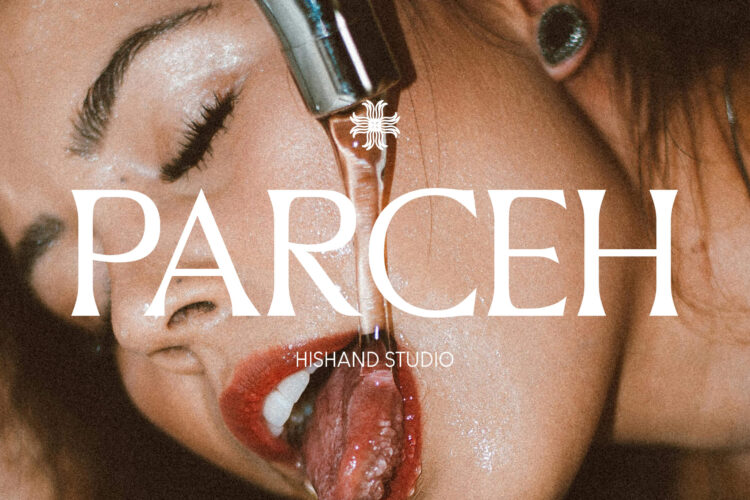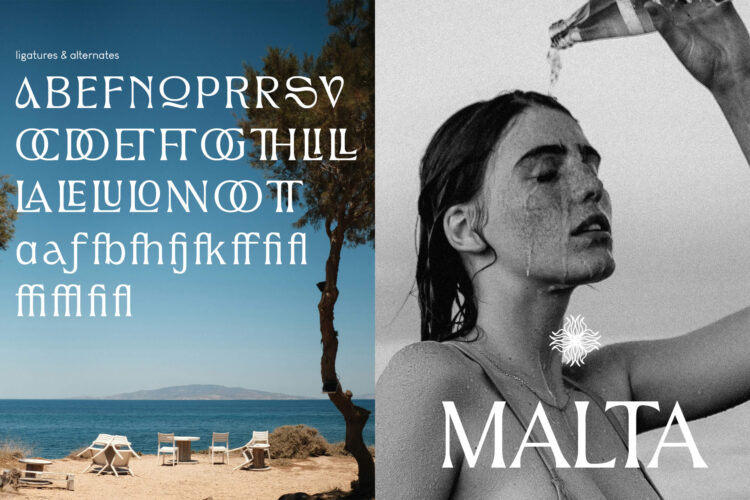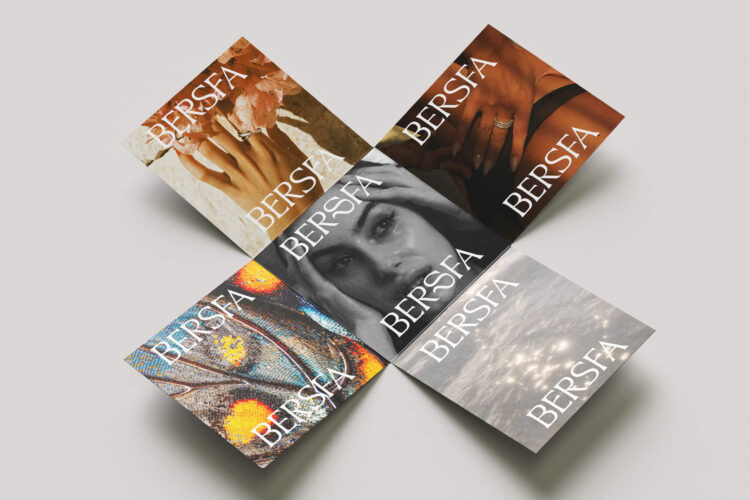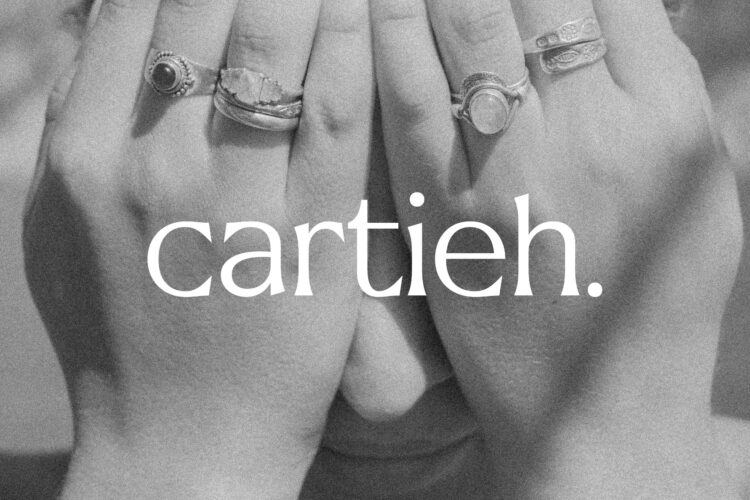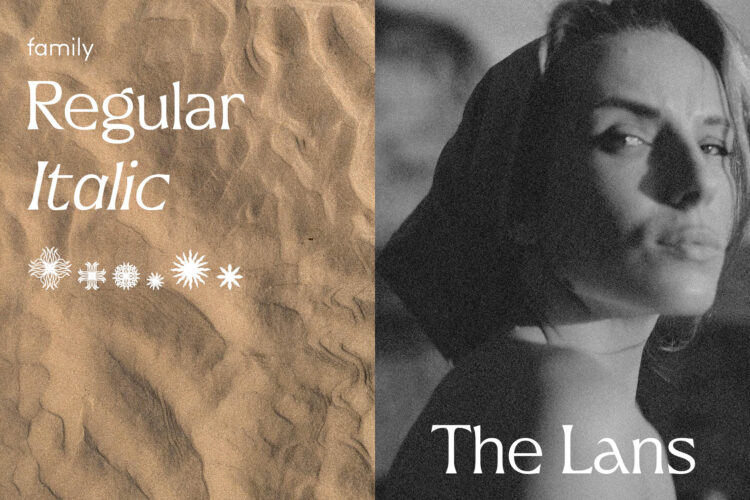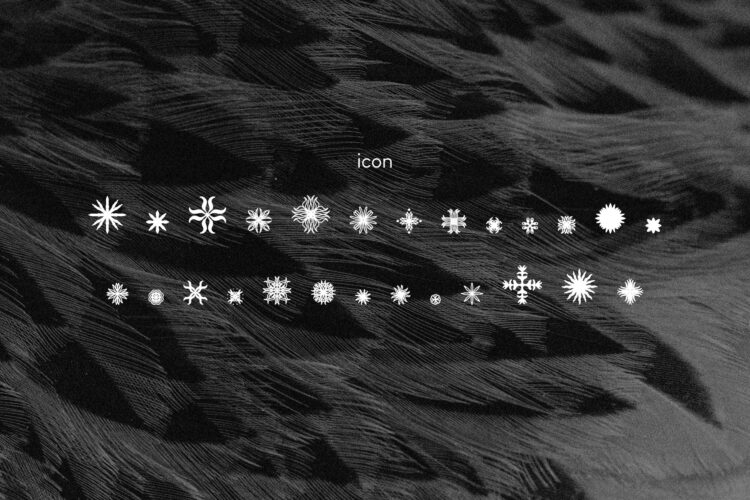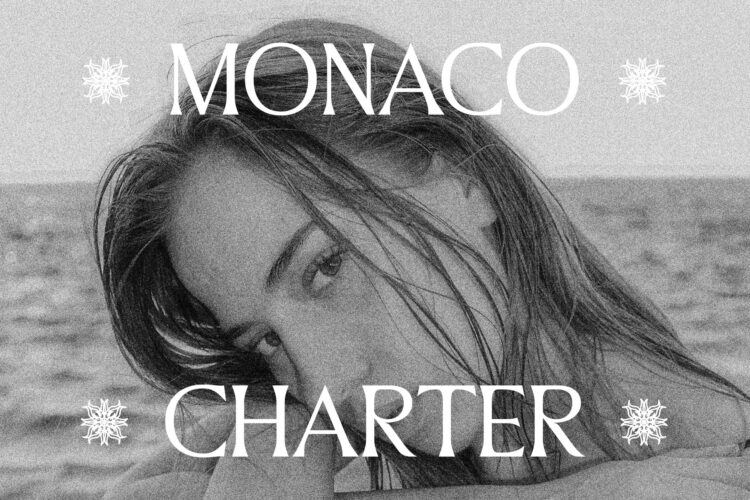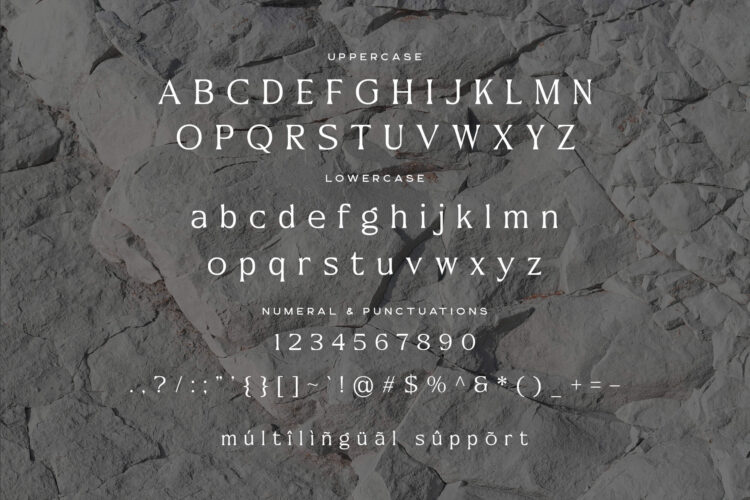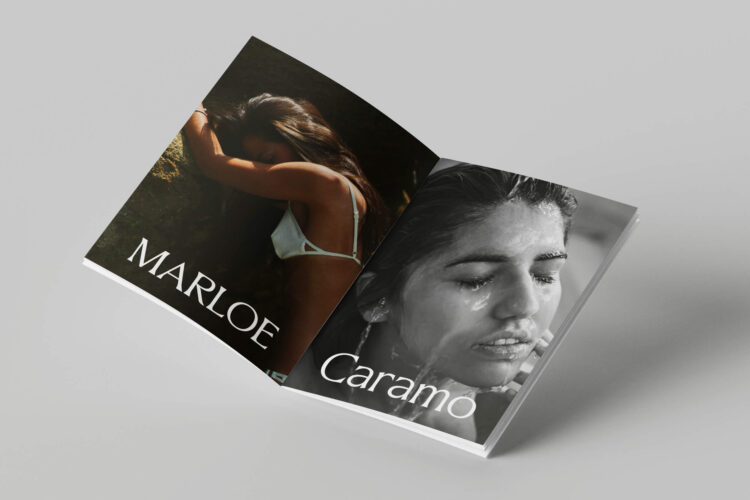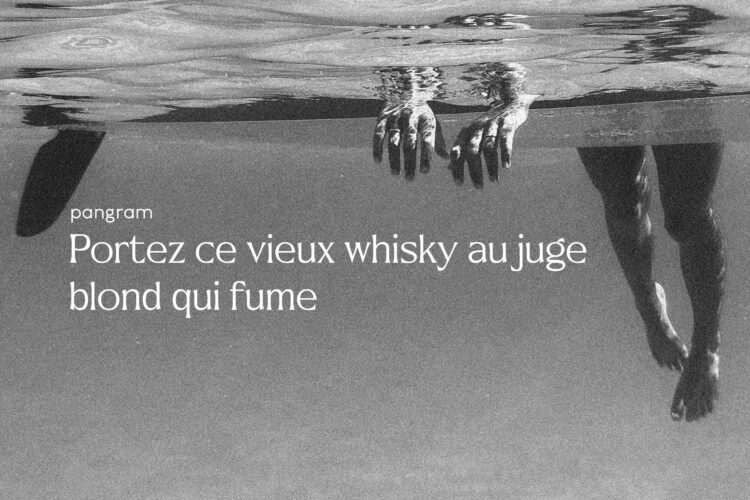
Parceh is an elegant serif display font designed to bring a refined yet striking aesthetic to any creative project. With its delicate high-contrast strokes, graceful serifs, and poised proportions, Parceh Serif Font delivers a luxurious, editorial feel that exudes sophistication and timeless beauty. It is crafted to work beautifully in headlines, fashion branding, posters, and premium packaging where elegance and style matter equally.
What makes Parceh unique is its fine, fashion-forward character. Each letterform is built with a strong high-contrast stroke and carefully crafted details that feel both classical and contemporary, giving designers the power to evoke refinement without sacrificing presence. The result is a typeface that feels at home in the pages of a luxury magazine just as naturally as it does on a boutique brand identity or an artistic poster. This balance makes it a versatile choice across a wide range of high-end creative applications.
The font carries a quiet confidence that speaks to those with a discerning eye for detail. Its slender strokes and structured silhouettes create a sense of poise and intentionality, making every word set in Parceh feel considered and purposeful. Whether used at a large display size or scaled down for subheadings, it maintains its elegance and visual clarity throughout, ensuring a consistent and polished result across all touchpoints of a design.
To complete the family, Parceh also includes 26 aesthetic icons. These icons are designed with the same visual language as the typeface, drawing from the same refined sensibility and attention to detail. They integrate seamlessly into layouts, making it effortless to build cohesive and visually compelling compositions that feel polished and intentional from start to finish. Together, the font and icons form a complete creative toolkit for designers who value beauty, harmony, and sophistication in every project they bring to life.
Complete with
- ligatures
- alternates
- regular
- Italic
- icon
- kerning
- multilingual support